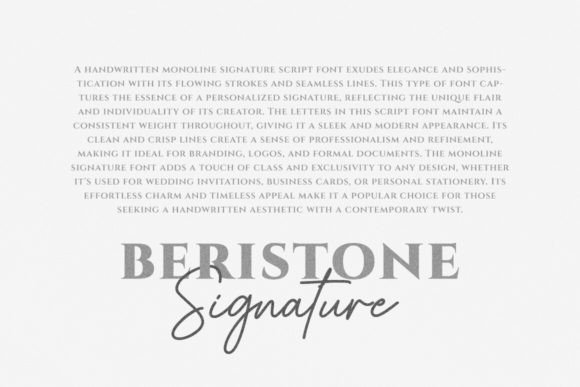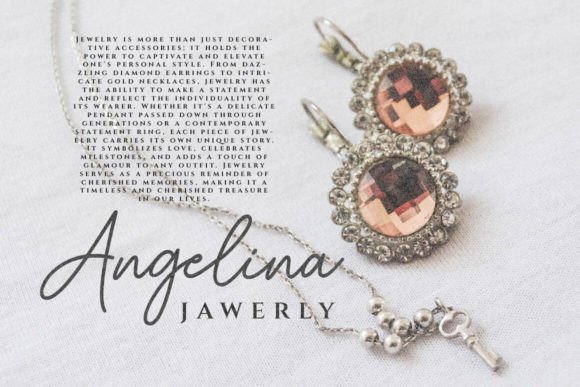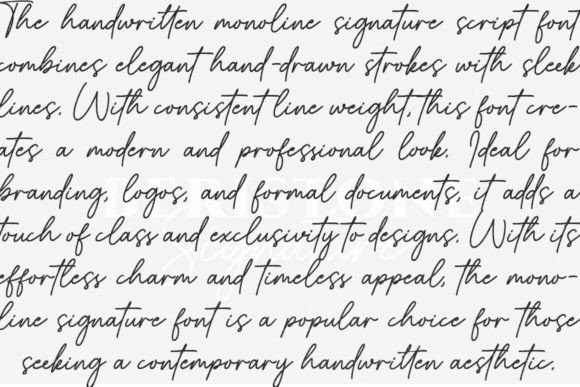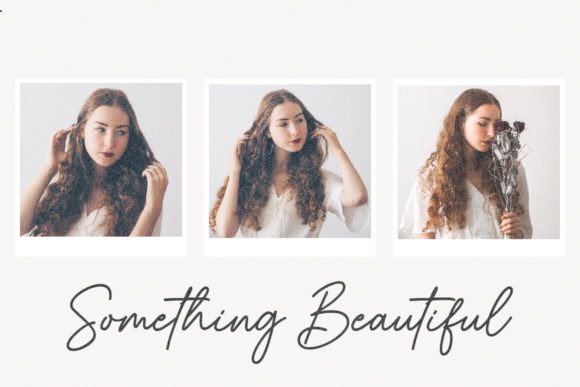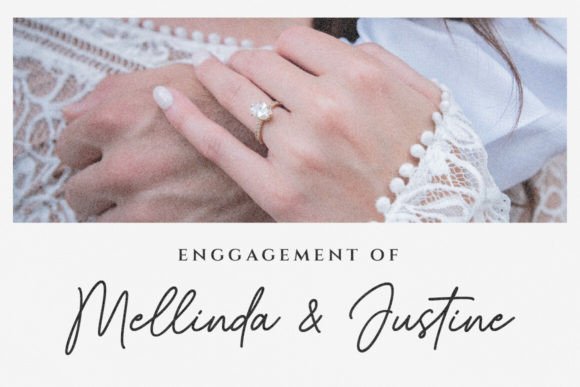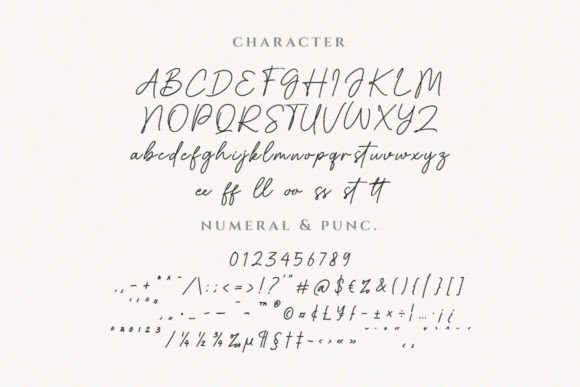
Discover the Timeless Elegance of Beristone Font
Have you ever stared at a blank sheet of paper, trying to conjure up the perfect handwritten font for your design project? The struggle is real, but what if I told you that there’s a font that can make your creative process a breeze? Enter Beristone Font, a stunning handwritten monoline signature script font that exudes sophistication and personal touch.
Beristone Font is more than just a font – it’s a statement piece that adds a touch of refinement and elegance to any design project. Whether you’re creating logos, branding materials, invitations, or anything in between, Beristone Font is the perfect choice for designers who crave a unique and authentic handwritten look. Its smooth lines and graceful curves make it a valuable addition to any designer’s toolkit.
Beristone Font Key Features
- Character Set: This font includes a wide range of characters, including Latin, Cyrillic, and Greek alphabets, as well as punctuation and symbols, making it suitable for multilingual designs.
- Unique Characteristics: Beristone Font features a unique blend of modern and vintage elements, with a distinctive, hand-drawn feel and a wide range of stylistic sets and ligatures.
Beristone Font Review
Overall, I think the Beristone font has some nice qualities that make it a solid choice for certain design projects. ✨ One of the things I appreciate is its modern and clean design aesthetic, which is perfect for creating a sleek and professional look.
Another aspect of the font that works well is its versatility. It comes in a range of weights and styles, making it easy to use across different platforms and design applications. ✨ The font is also highly legible, which is essential for any font.
- Modern and clean design aesthetic
- Highly legible
- Comes in a range of weights and styles
- Easy to use across different platforms and design applications
- Lacks personality and uniqueness
- May not be suitable for projects that require a bold or attention-grabbing font
- Some users may find it too neutral or boring
In conclusion, while the Beristone font has its limitations, it’s a solid choice for design projects that require a clean and modern aesthetic. With its range of weights and styles, it’s a versatile font that can be used across different platforms and applications. However, it may not be the best choice for projects that require a bold or attention-grabbing font.
Tips for Getting the Most Out of Beristone Font
To get the most out of Beristone Font, use it in conjunction with bold and italic styles to create visual hierarchy and emphasis. Experiment with different font sizes and colors to create a unique and eye-catching design.
Beristone Font is commonly used in creative projects such as branding, marketing materials, and social media graphics. It’s also suitable for use in editorial and publishing projects where a unique and stylish font is required.